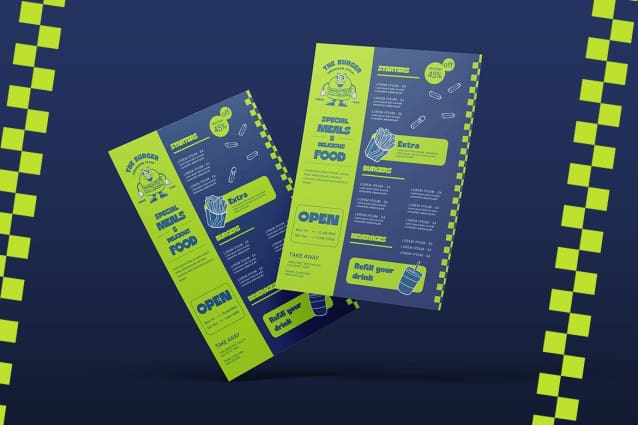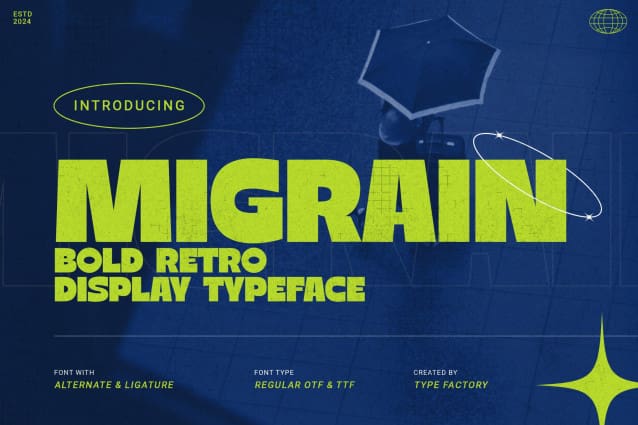
Migrain Font
Migrain Font is a bold retro display font that brings back the nostalgic charm of vintage design with a modern twist. Its thick, curvy letters and playful style make it ideal for posters, logos, album covers, and branding projects that need a fun retro vibe. Migrain’s bold presence allows your designs to stand out with a quirky and energetic appeal, making it ideal for projects that want to evoke a sense of nostalgia while still being fresh and eye-catching.